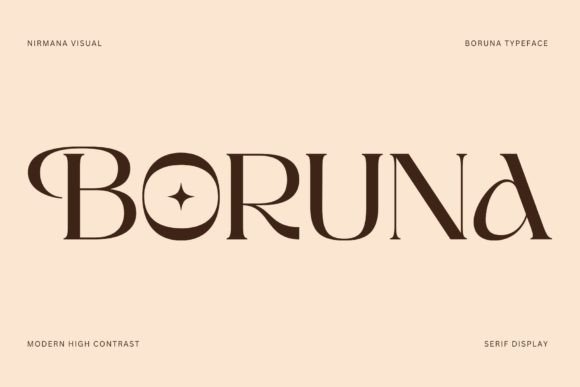
Embark on a Typographic Voyage with Boruna: The Quintessential Serif Font for Research Posters
In the realm of academia, where knowledge reigns supreme, effective communication is paramount. Boruna, the research poster's font of choice, transports your ideas from the depths of obscurity into the limelight of clarity. Its meticulously crafted serif strokes command attention, guiding readers through your research's intricacies with elegance and precision.
Step into the shoes of a master storyteller, weaving captivating narratives through Boruna's glyphs. Its versatile nature adapts seamlessly to any research niche, transforming complex concepts into digestible morsels. Impart wisdom with finesse, letting your research shine in the spotlight it deserves.
Harness the power of Boruna's typographic harmony to elevate your research posters beyond the ordinary. Each glyph, lovingly shaped by the hand of renowned designer Sigit Dwipa, carries a legacy of excellence. Experience the seamless fusion of aesthetics and functionality as Boruna effortlessly enhances your poster's visual appeal.
With Boruna as your trusted companion, your research posters will captivate audiences, leaving an indelible mark on their minds. Its thoughtfully designed curves and swashes breathe life into your content, transforming it into a symphony of visual delight. Prepare to witness the transformative power of typography as Boruna elevates your posters to new heights of sophistication.
Unleash the eloquence of Boruna, the research poster font that empowers you to communicate with impact. Its ability to effortlessly convey complex information will leave your audience spellbound. Experience the transformative power of typography as Boruna transforms your research posters into masterpieces of academic excellence.